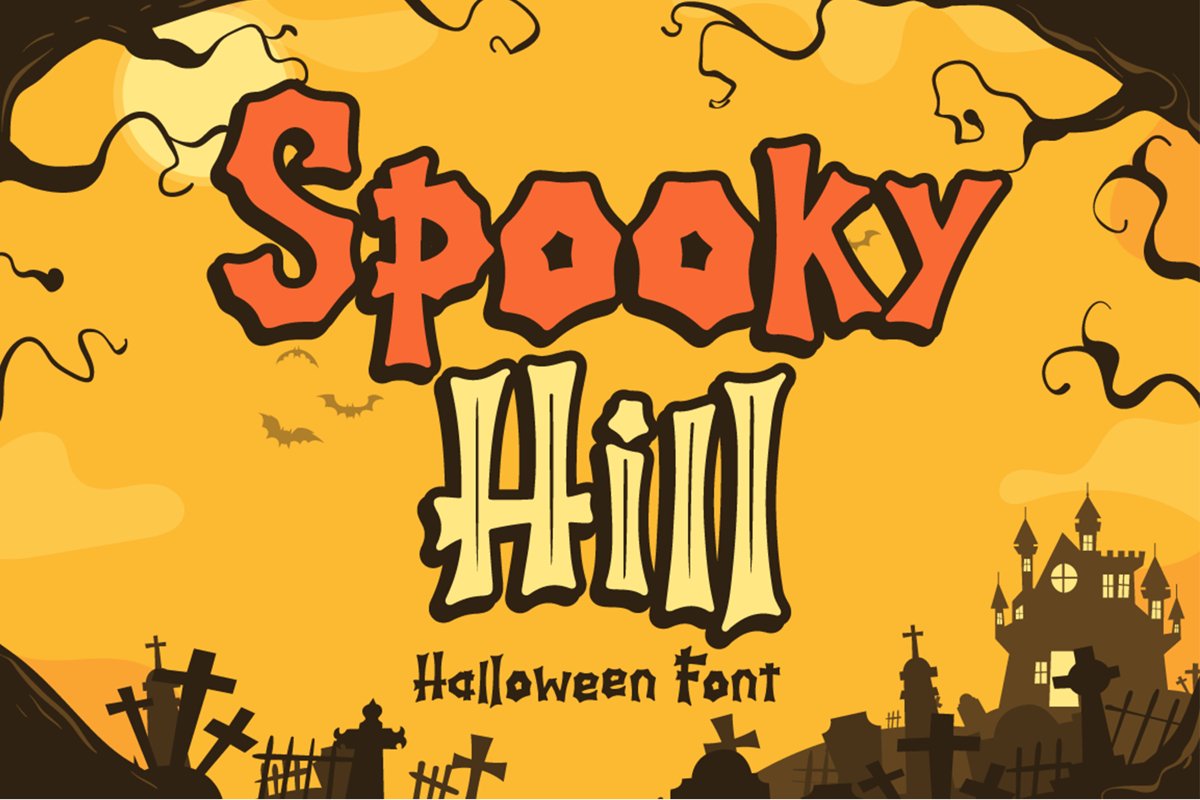
Spooky Hill
Spooky Hill is Halloween display font comes with 2 style regular and inline that perfect for any halloween events and promotions.
Spooky Hill is perfect for branding, logo, invitation, stationery, social media post, product packaging, merchandise,
blog design, game titles, cute style design, Book/Cover Title and more.